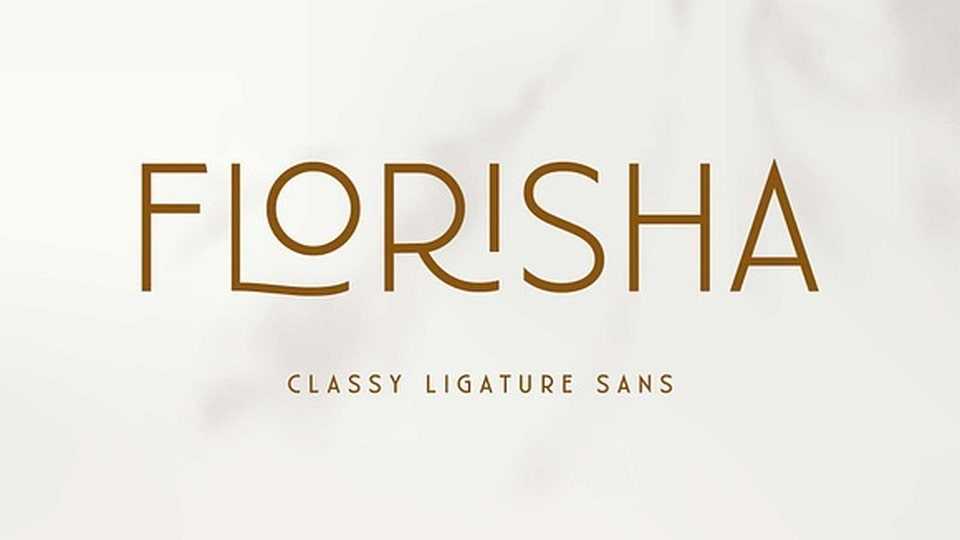
Download Florisha font, a playful yet elegant sans-serif typeface featuring unique letterforms and special characters. With its uniform lowercase and uppercase heights, Florisha exudes an elegant and minimalist vibe.